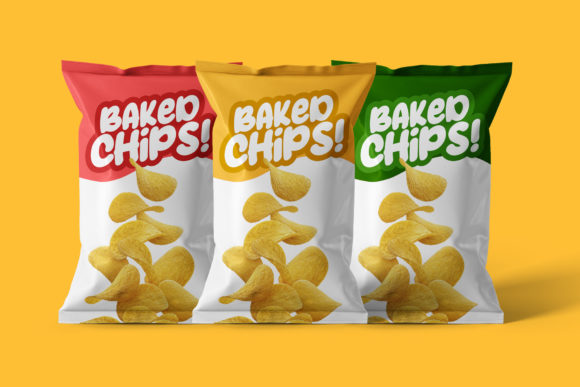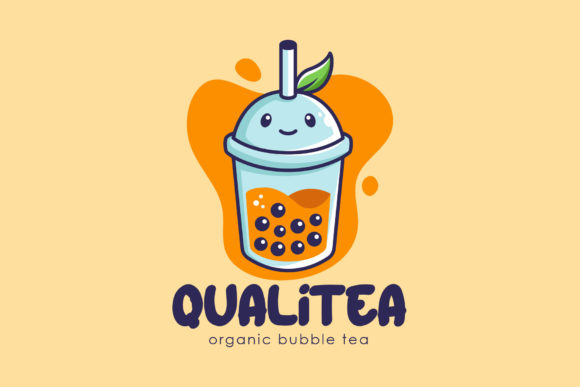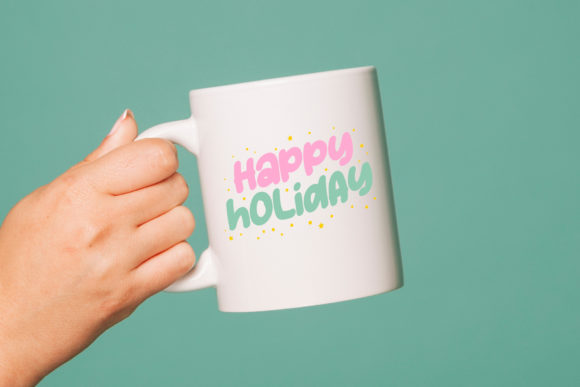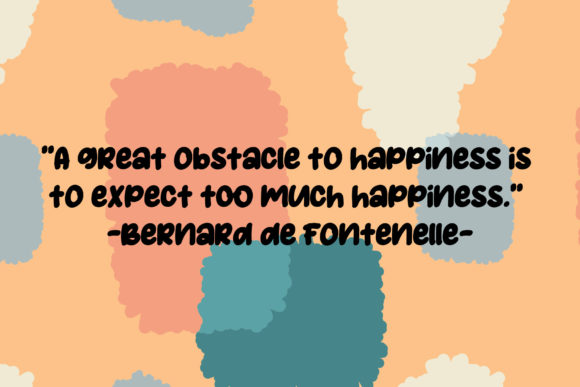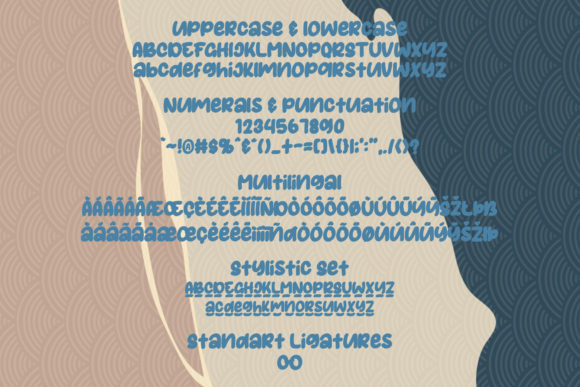
Nooble Wooble Font
About Nooble Wooble Font
Nooble Wooble is a cute, playful and paint brushed handwritten font. It is PUA encoded which means you can access all of the glyphs and swashes with ease!